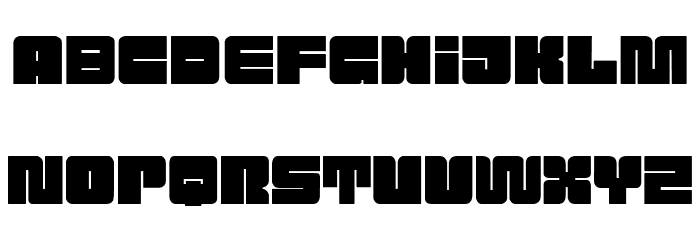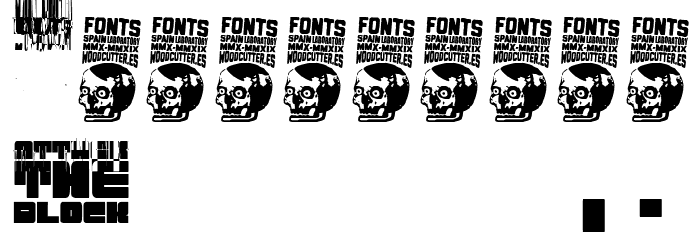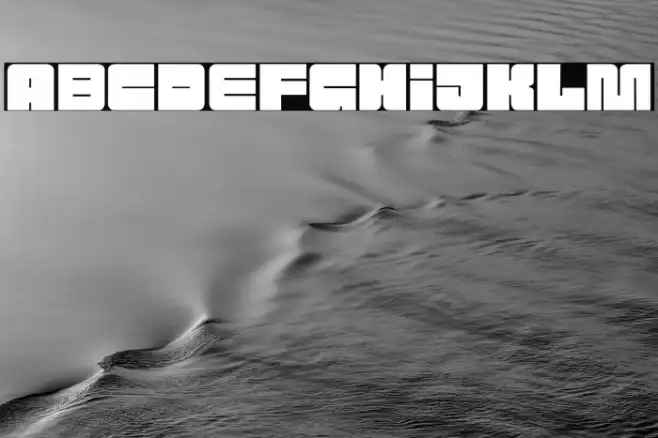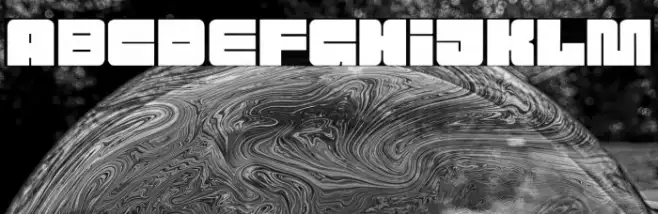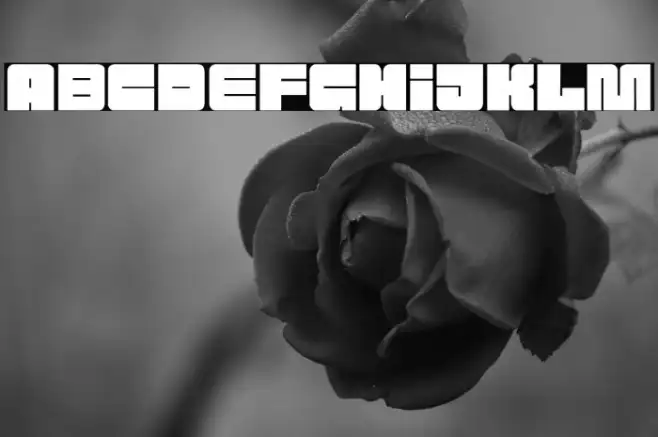
Attack the Block Font
This font features a bold, blocky design with a distinctly modern and urban feel. The characters are uniformly wide, giving it a strong and impactful appearance. The uppercase letters are particularly striking, with a geometric style that emphasizes straight lines and sharp angles. The lowercase letters maintain the same boldness, ensuring consistency across the typeface. Numbers and special characters are designed to match the robust style, making them suitable for attention-grabbing headlines or logos. The font's overall aesthetic is reminiscent of street art or graffiti, making it ideal for projects that require a contemporary and edgy look.
A bold, blocky font with a modern, urban aesthetic.
- Font: Attack the Block
- Proposed Projects: Ideal for streetwear branding, urban-themed posters, music album covers, and graffiti-inspired designs.